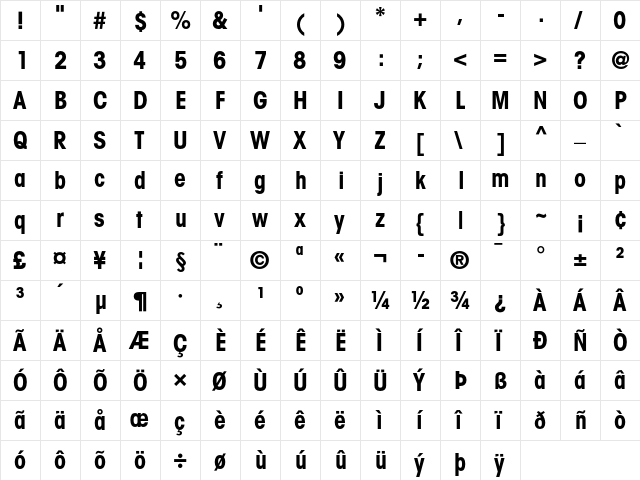
ITC Avant Garde Gothic Bold Condensed
Design Context for ITC Avant Garde Gothic Typeface
ITC Avant Garde Gothic has the quiet confidence of well-executed sans-serif typography: versatile, unobtrusive, and dependable at any size. Its bold stroke weight gives it real presence on the page. The condensed width makes it efficient for tight spaces without sacrificing legibility.
A strong choice for UI design, app interfaces, bold signage, and corporate brand systems.
Font Pairing: Use ITC Avant Garde Gothic for headlines alongside a lighter-weight sans or serif for body copy to establish clear visual hierarchy.
Pro Tip: Try ITC Avant Garde Gothic in all-caps with moderate tracking for navigation and label copy — it performs well in systematic UI contexts.